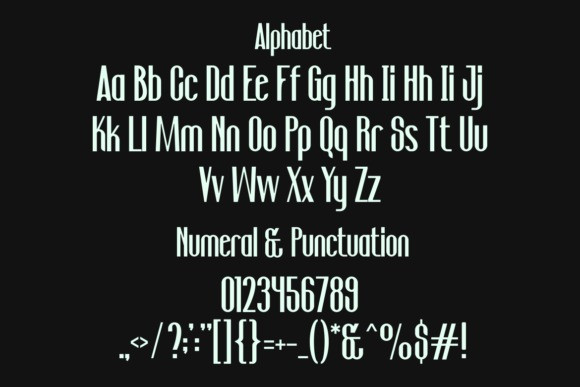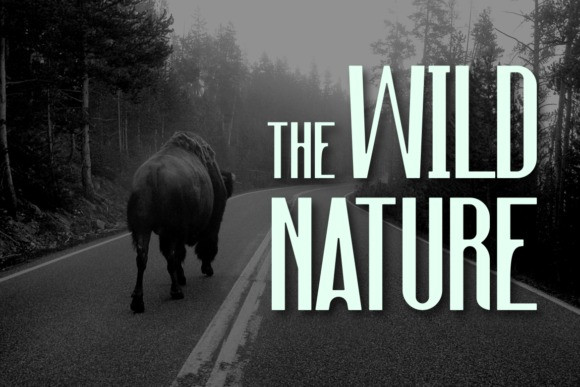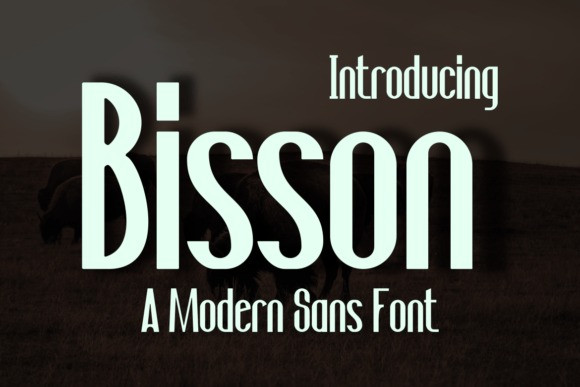
Bisson Font
Bisson Font is a modern, bold, and authentic display font suitable for any branding project like logos, T-shirt printing, esports, and many more. Outstanding in a wide range of contexts, it will make your work extraordinary!